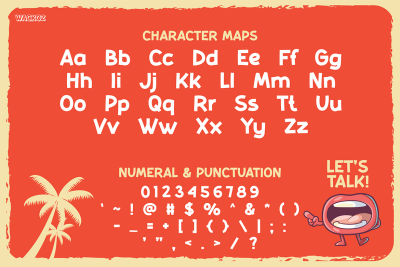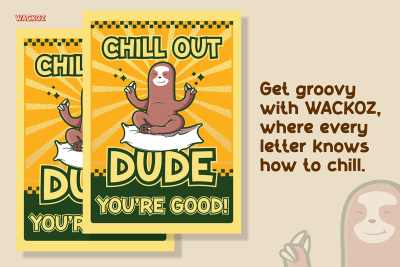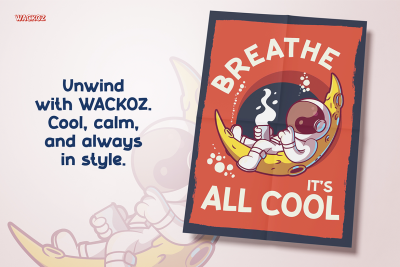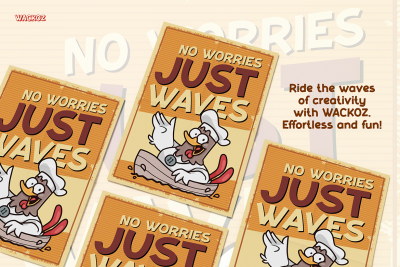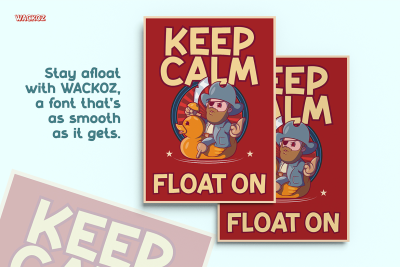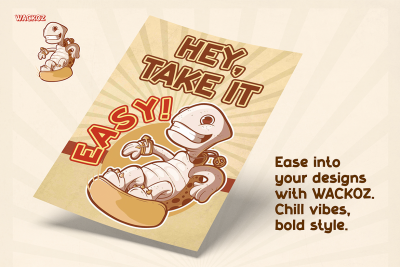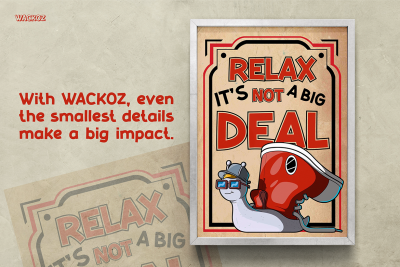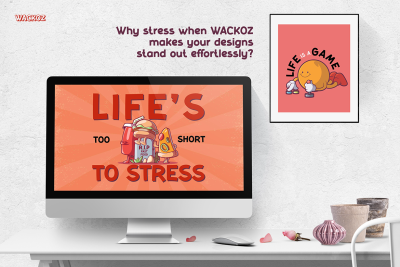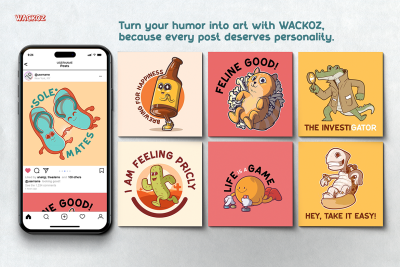
Vintage font Wackoz brings boldness and a playful retro vibe to any design. With its clean, geometric shapes and quirky details, it creates a dynamic visual. Perfect for headlines, posters, and branding, this font blends tropical aesthetics with a nostalgic feel. Its textured appearance adds charm, giving projects both a rustic and modern look.
Wackozโs versatility makes it great for product labels, event posters, and social media graphics. Its bold letterforms provide readability and impact, even from a distance. Whether for casual or high-energy designs, it adds personality without overwhelming the viewer. The fontโs design works well for travel, summer, and leisure themes, invoking feelings of nostalgia and warmth. It creates a connection with your audience, inviting them to engage in a friendly, approachable way. The fontโs adaptable nature makes it easy to integrate into a variety of creative projects, ensuring it complements both playful and serious content.
Thanks to its strong, playful strokes, Wackoz is ideal for designs that need a bold statement while keeping a sense of fun and warmth. Its adaptable nature makes it an excellent choice for both digital and print materials.
Vintage Font Wackoz Ideal Users
Wackoz is perfect for designers aiming to create vibrant, eye-catching designs. Small businesses like beach cafรฉs, lifestyle shops, or eco-conscious brands can use it for branding. Event organizers, such as those planning festivals or summer promotions, will find it effective for creating excitement and engagement.
Content creators, particularly in travel, fashion, or lifestyle, will love the fun and youthful vibe Wackoz adds to their projects. The font is also perfect for social media posts, website headers, and promotional materials, allowing users to connect with their audience across multiple platforms. Whether you’re a marketer, designer, or influencer, Wackoz adds personality to your work, ensuring your designs stand out. Its flexible nature also makes it suitable for a wide range of applications, from casual blog posts to eye-catching advertisements.